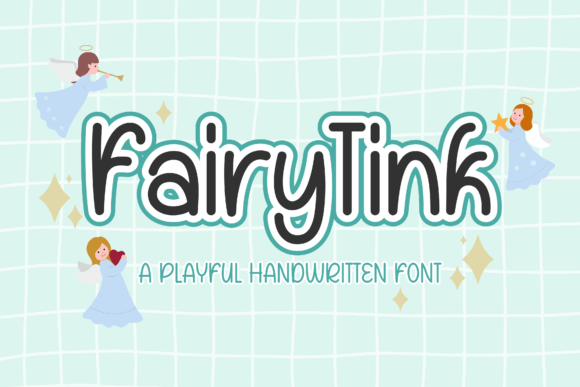
The Magic of Handwritten Charm: Introducing Fairytink Font
Have you ever stared at a blank page, trying to bring a creative idea to life, but struggling to find the right words to convey the whimsy and wonder in your mind? That’s when I fell in love with the Fairytink Font – a playful, handwritten font that adds a sprinkle of magic to any design.
Fairytink Font is designed to add a touch of sweetness and personality to your projects. Its soft curves and quirky character shapes make it perfect for logos, posters, banners, product packaging, children’s content, apparel, and stickers. Whether you’re a seasoned designer or just starting out, Fairytink Font is a valuable addition to your creative toolkit, helping you to infuse your designs with a little extra charm and personality.
Fairytink Font Key Features
- Unique Characteristics: Fairytink Font features a unique blend of whimsical and elegant elements, making it perfect for creating eye-catching and imaginative designs.
Fairytink Font Review
As a designer, I’m always on the lookout for unique and visually appealing fonts to add some magic to my designs. The Fairytink Font caught my eye, and I decided to give it a try. Here’s my honest review.
- Uniqueness: The Fairytink Font is unlike any other font I’ve seen. Its whimsical and fantastical design makes it perfect for adding a touch of fairy tale magic to your projects.
- Legibility: Despite its quirky design, the font is surprisingly easy to read, making it suitable for a wide range of applications.
- Flexibility: The font comes in a variety of styles, from bold and playful to elegant and refined, giving you plenty of options to choose from.
- Limited character set: The Fairytink Font has a relatively limited character set, which may not be ideal for complex or technical content.
- Not suitable for small text: The font’s intricate design can make it difficult to read in small sizes, which may limit its use in certain applications.
While the Fairytink Font has its limitations, I think it’s a great addition to any designer’s toolkit. Its unique design and flexibility make it perfect for adding a touch of whimsy and magic to your projects. With a little creative thinking, I’m sure you can find ways to work around its limitations and make the most of this enchanting font.
For the best results, pair Fairytink Font with bold and vibrant colors to create a striking contrast. Experiment with different font sizes and styles to add depth and interest to your designs. You can also use Fairytink Font in combination with other whimsical elements, such as illustrations and graphics, to create a cohesive and enchanting design.
Fairytink Font is perfect for creating magical and whimsical designs, such as:
– Children’s book covers and illustrations
– Fantasy and sci-fi themed posters and graphics
– Holiday and party decorations